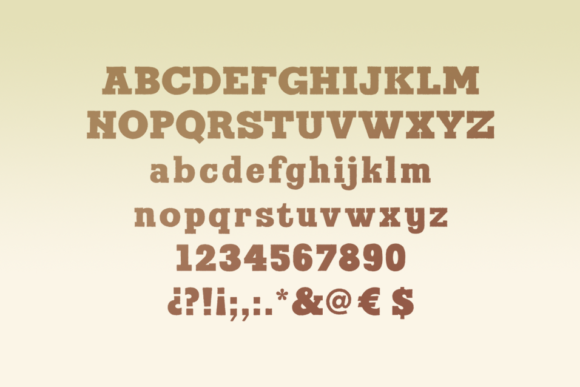
Brennan Font: Elevate Your Designs with Elegance and Versatility
In the world of typography, a well-crafted font can make all the difference in elevating your designs to the next level. Introducing Brennan Font, a stunning serif font that exudes elegance, charm, and versatility. In this article, we’ll dive into the features and benefits of Brennan Font, and explore how it can become a true favorite in your design arsenal.
The Characteristics of Brennan Font
Brennan Font is a carefully handcrafted serif font that boasts a unique blend of sophistication and approachability. Its elegant lines and curves make it perfect for designs that require a touch of refinement, while its casual charm ensures it remains down-to-earth and relatable. This beautiful balance of characteristics makes Brennan Font an excellent choice for a wide range of design applications.
Readability and Versatility
One of the standout features of Brennan Font is its exceptional readability. The font’s carefully crafted letterforms ensure that it remains clear and legible, even in smaller sizes or on busy backgrounds. This makes it an excellent choice for designers who need a font that can perform well in various contexts. Whether you’re creating a headline, body text, or a combination of both, Brennan Font is up to the task.
Design Applications for Brennan Font
Brennan Font is incredibly versatile, making it suitable for a wide range of design applications. Here are a few examples:
- Headlines and Titles: Use Brennan Font to create stunning headlines and titles that grab attention and make a lasting impression.
- Body Text: Its readability and elegance make it perfect for body text, ensuring your content is both easy to read and visually appealing.
- Branding and Identity: Brennan Font can help establish a strong brand identity, conveying a sense of sophistication and approachability.
- Print and Digital Media: Whether you’re designing for print or digital media, Brennan Font is an excellent choice, performing well on various backgrounds and devices.
What Makes Brennan Font Stand Out
So, what sets Brennan Font apart from other serif fonts? Here are a few key factors:
- Handcrafted with love: Brennan Font is carefully crafted with attention to detail, ensuring a level of quality and uniqueness that’s hard to find in other fonts.
- Elegant yet approachable: The font strikes a perfect balance between elegance and approachability, making it suitable for a wide range of design applications.
- Exceptional readability: Brennan Font is designed to be easy to read, even in smaller sizes or on busy backgrounds.
Tips for Using Brennan Font Effectively
To get the most out of Brennan Font, here are a few tips to keep in mind:
- Experiment with font sizes: Brennan Font performs well in various sizes, so don’t be afraid to experiment and find the perfect balance for your design.
- Pair it with other fonts: Brennan Font can be paired with other fonts to create a unique and visually appealing typography combination.
- Use it consistently: To establish a strong brand identity, use Brennan Font consistently across your designs.
Brennan Font is an exceptional serif font that offers a unique blend of elegance, charm, and versatility. Its exceptional readability, handcrafted design, and wide range of applications make it an excellent choice for designers and crafters. Whether you’re creating a headline, body text, or establishing a brand identity, Brennan Font is sure to become a true favorite in your design arsenal.